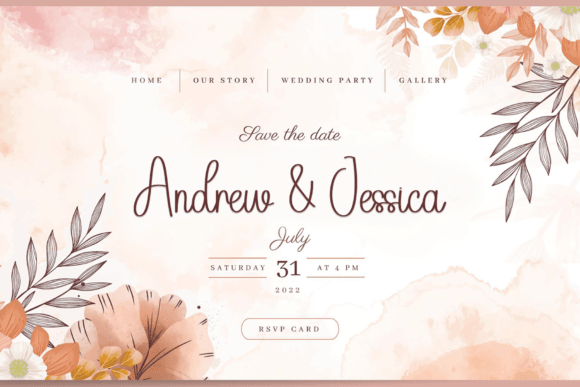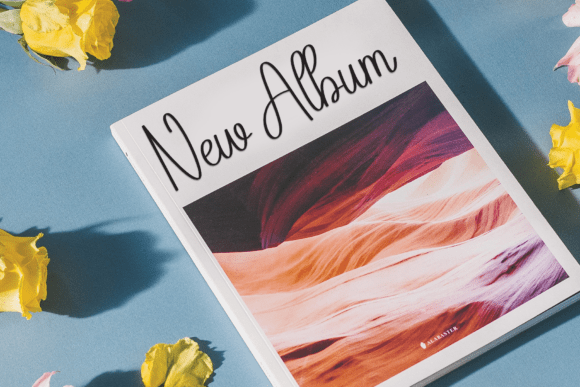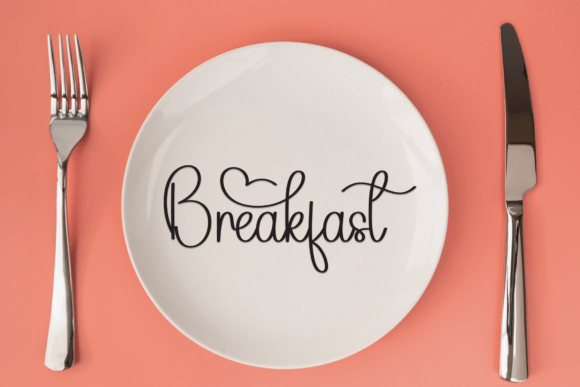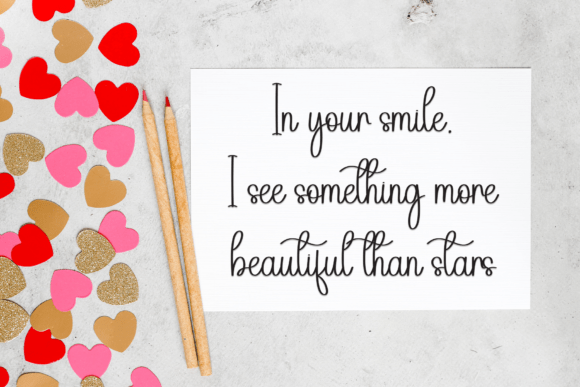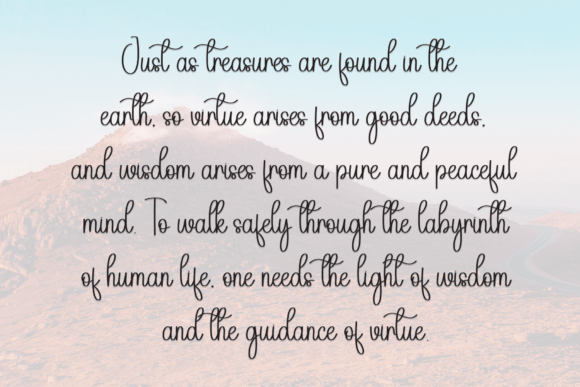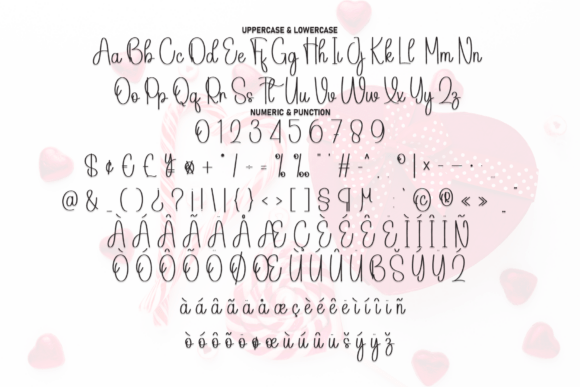
Introduction to Candy Valentine Font
Do you remember that moment when you stumbled upon the perfect font for your creative project, and it instantly transformed your design from ordinary to extraordinary? For designers, finding the right font can be the difference between a mediocre project and a masterpiece. That’s exactly what the Candy Valentine Font offers – a stylish script font that exudes elegance and contemporary charm.
Whether you’re working on a logo, invitation, packaging, or social media graphic, this font adds a refined and sophisticated touch that’s hard to find elsewhere. With its natural flow and polished details, it delivers both versatility and visual appeal, making it a valuable design resource for any project. Plus, with its high-quality design, it’s perfect for using on a transparent background, ensuring your work stands out.
Key Features of Candy Valentine Font
- Candy Valentine Font is a high-quality design resource perfect for creative projects, including invitations, greeting cards, and other romantic designs.
- This font features a transparent background, allowing for easy layering and customization in design applications.
- This unique font features a playful, cursive script with a romantic flair, ideal for adding a touch of whimsy to your designs.
- This font is a valuable addition to any designer’s toolkit, offering a high level of customization and flexibility for creative projects.
Honest Review: Candy Valentine Font
I recently had the chance to work with the Candy Valentine Font, and I must say, it’s a lovely addition to any design project. ✨ The font is perfect for those looking to add a touch of sweetness to their creative project, whether it’s a Valentine’s Day-themed poster, a wedding invitation, or even a social media graphic.
One of the things that stands out about this font is its high quality and crisp lines, making it ideal for both digital and print designs. The transparent background option also makes it easy to customize and integrate into various design elements. It’s a great resource for designers looking for a reliable font to use in their projects.
- High-quality design with crisp lines and smooth curves.
- Perfect for Valentine’s Day-themed projects or any design that requires a touch of sweetness.
- Easy to customize with a transparent background option.
- May not be suitable for designs that require a more dramatic or edgy look.
- The font may not be as versatile for non-Valentine’s Day-themed projects.
Overall, I’m impressed with the Candy Valentine Font and would recommend it to designers looking for a reliable and high-quality font to use in their creative projects.
For the most out of the Candy Valentine Font, use it for creative projects such as social media graphics, invitations, and wedding designs. You can also use it for personal projects, such as making custom birthday cards. Remember to pair the font with other design elements to create a cohesive look.